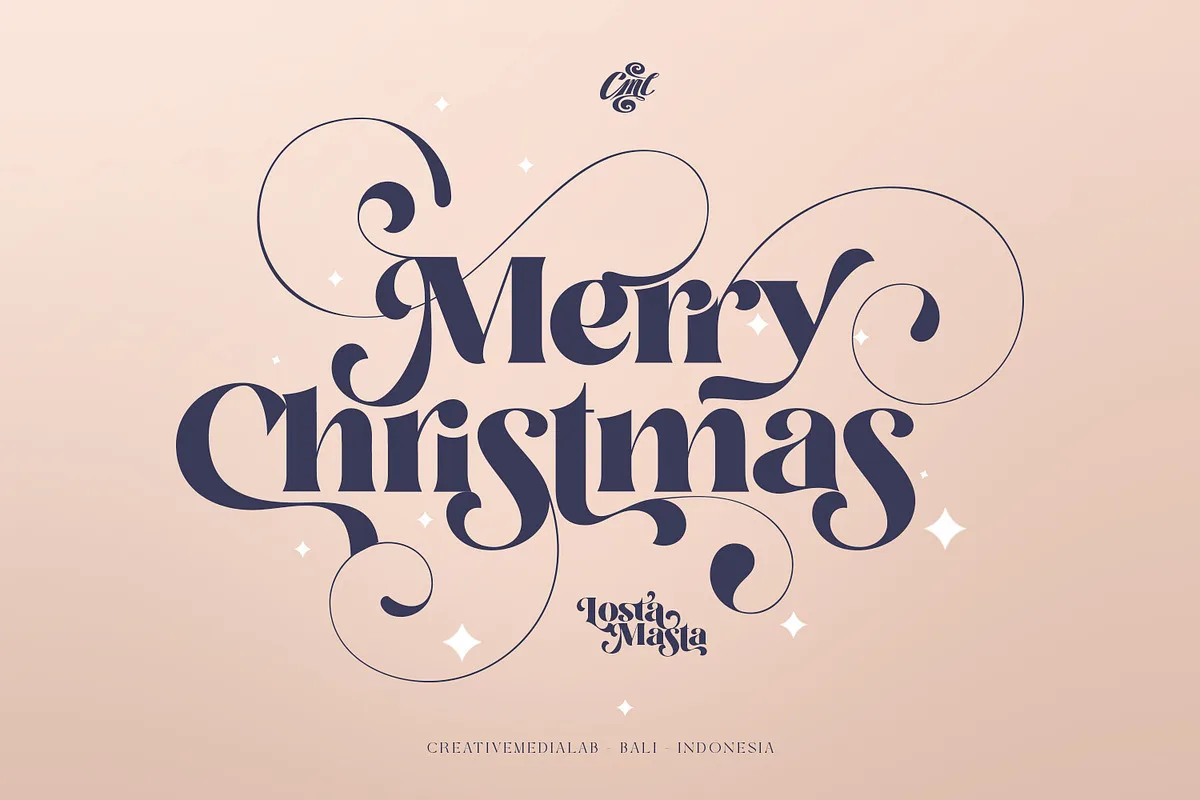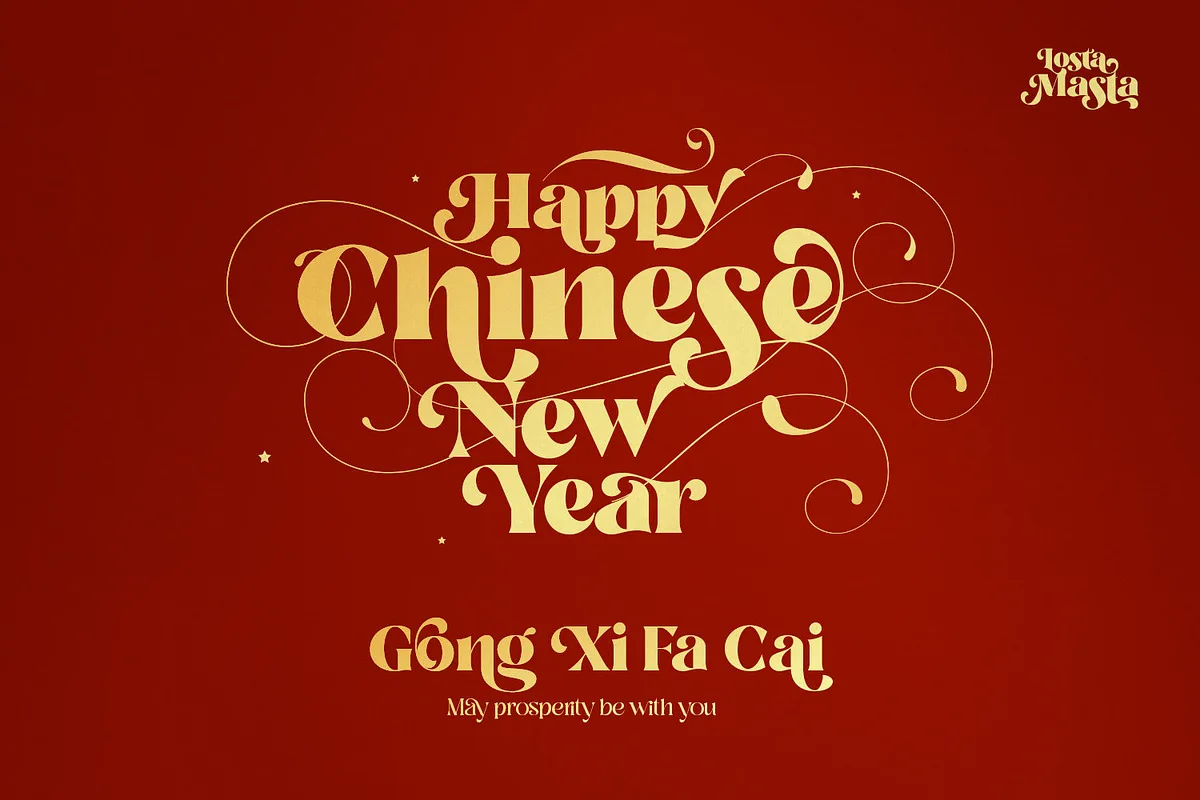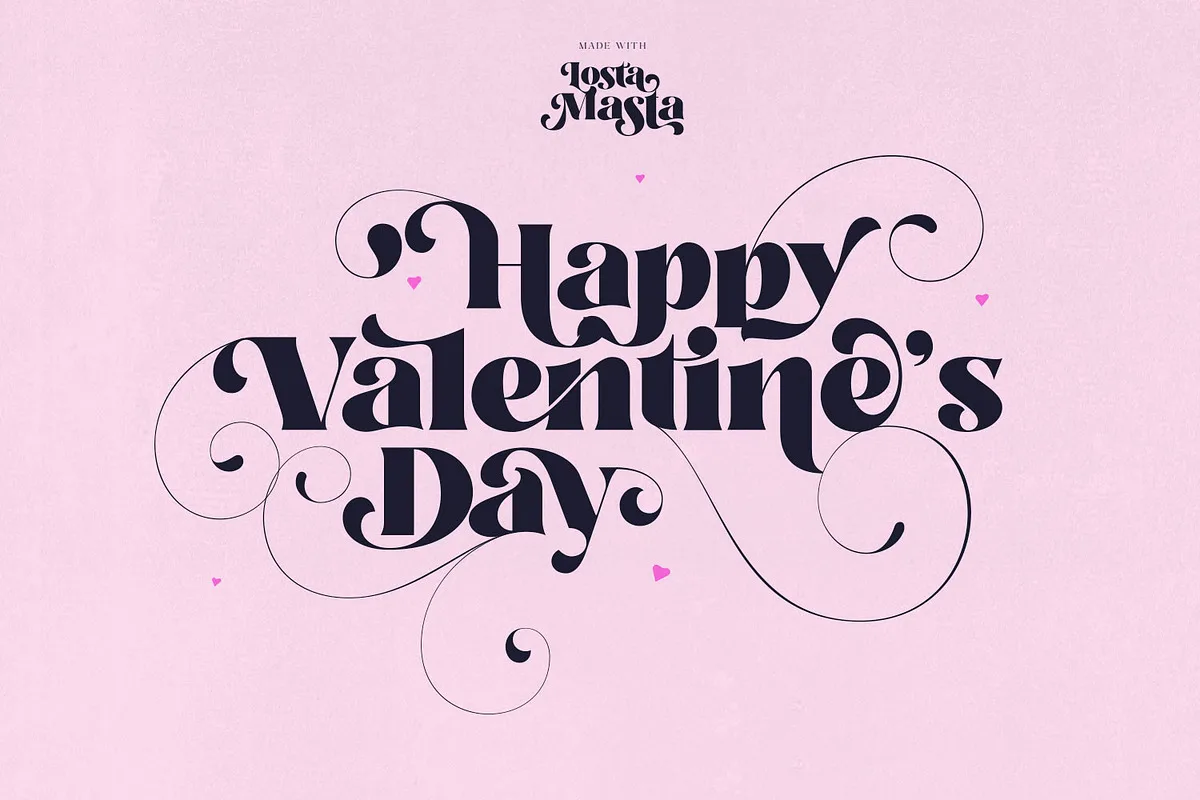
Losta Masta Font – fun and playful serif family. Unique, playful and versatile serif family with 40+ ligatures and 100+ alternates can combine to get curves and beautiful shapes just in seconds.
Type the words and Add the unique shapes from Losta Masta ornament to get a more stunning display.
This font is suitable for many design forms, such as magazines, postcards, logos, DIY Projects, invitation cards, quotes, vintage look design, an old classic, the 60s, 70s, 80s, wedding projects and much more.